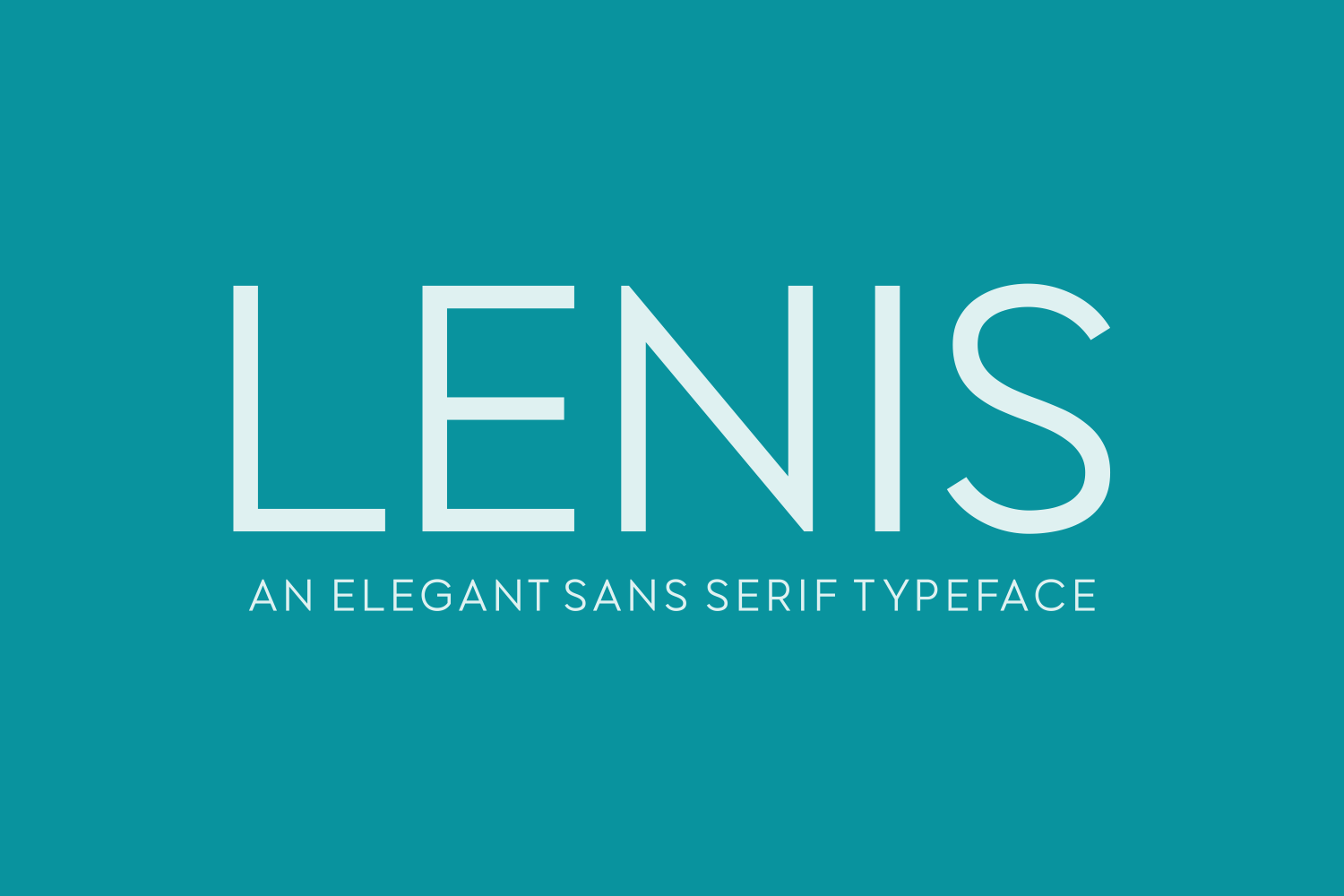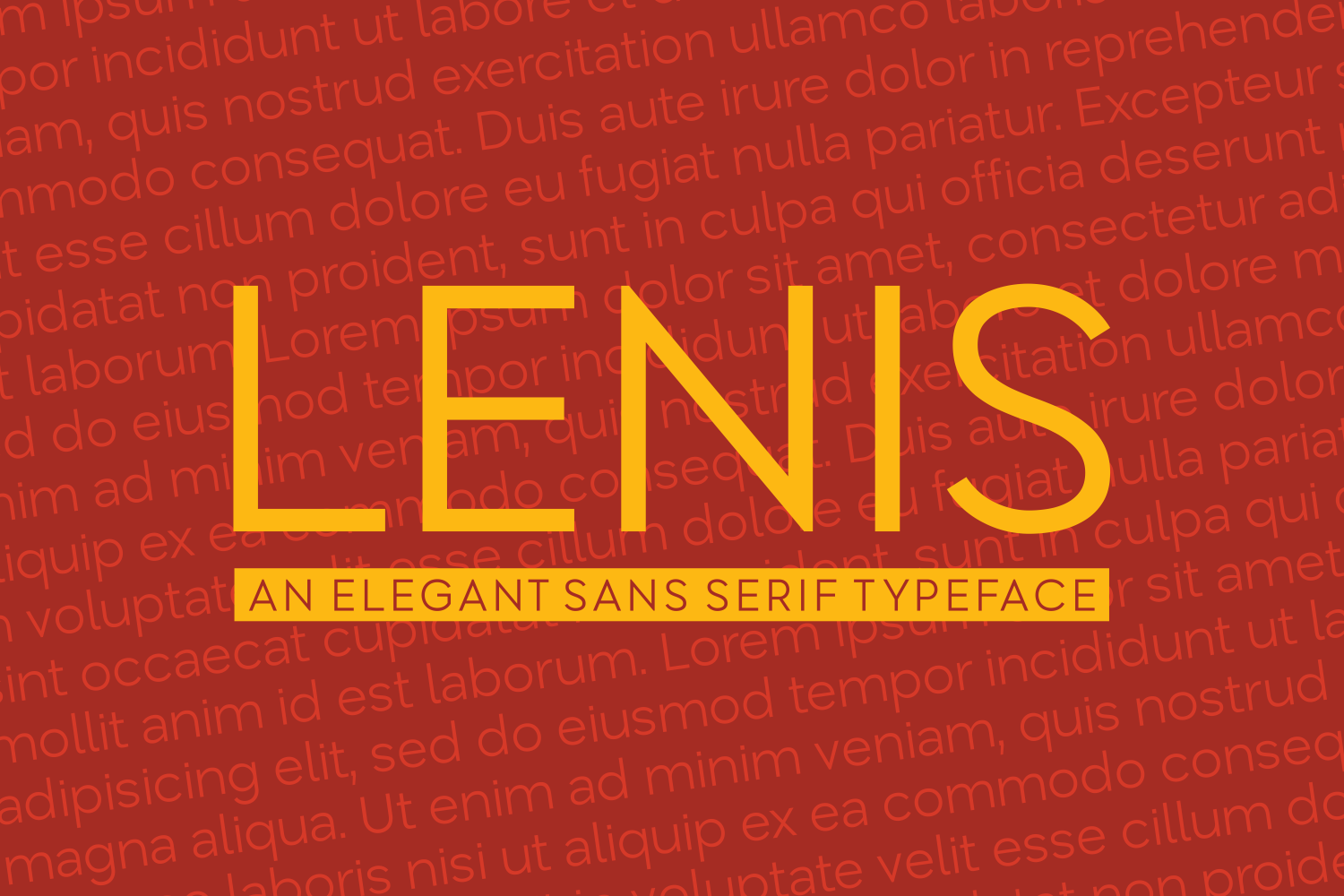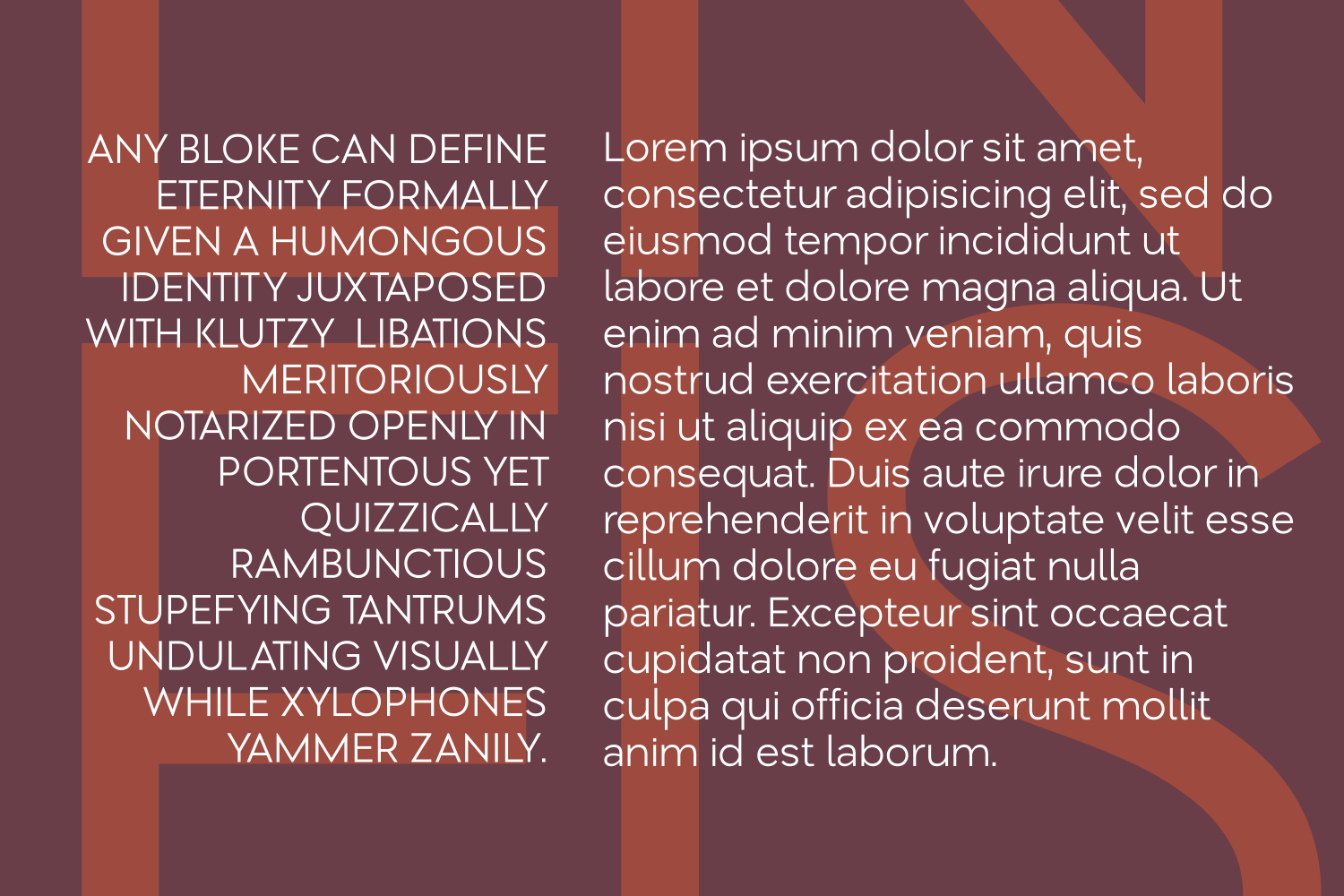
Introduction to Lenis Font
Have you ever stared at a blank page, trying to conjure up the perfect design for a creative project, only to be stumped by the font? We’ve all been there. But what if the perfect font was right in front of you? Introducing Lenis Font, a stunning sans serif font that’s optimized for both web and print.
With its elegant design and transparent background, Lenis Font is a valuable resource for designers looking to elevate their work. Its high quality and versatility make it a go-to choice for large headlines and small body text alike. Plus, it scales beautifully, ensuring that your design looks great no matter the size. And the best part? It’s available for free download, making it an accessible design resource for creatives of all levels.
Whether you’re working on a personal project or a high-stakes design brief, Lenis Font is sure to impress. So why not give it a try and see the difference it can make in your creative endeavors?
Key Features of Lenis Font
- High-quality font design suitable for creative projects and professional use.
- Comes in a transparent background option, allowing for seamless integration with various backgrounds.
- Designed with a modern and sleek aesthetic, making it perfect for a wide range of creative projects.
- Includes a high-resolution design (300 DPI) for print and digital use, ensuring crisp and clear typography.
Honest Review: Lenis Font
I recently stumbled upon the Lenis Font and I must say, it’s a beautiful addition to any design project. As a designer, I appreciate high-quality fonts that can elevate a creative project to the next level.
Here are some aspects that work well for me:
- ✨ The Lenis Font is highly customizable, allowing me to easily adjust the font weights, styles, and sizes to suit my design needs.
- ⚠️ The font may not be suitable for designs that require a transparent background, as the font’s opacity can be inconsistent.
- ⚠️ The font’s character set is limited, which may not be ideal for designers working on complex projects that require a wide range of characters.
Overall, I’m impressed with the Lenis Font and its potential to enhance a design project. While it may have some limitations, I believe it’s a valuable addition to any designer’s toolkit.
Tips for Getting the Most Out of Lenis Font
For optimal results, use the Lenis Font in conjunction with a high-quality design. Experiment with different font sizes and styles to achieve the desired effect. You can also use the Lenis Font in combination with other design elements, such as images and graphics, to create a visually appealing design.